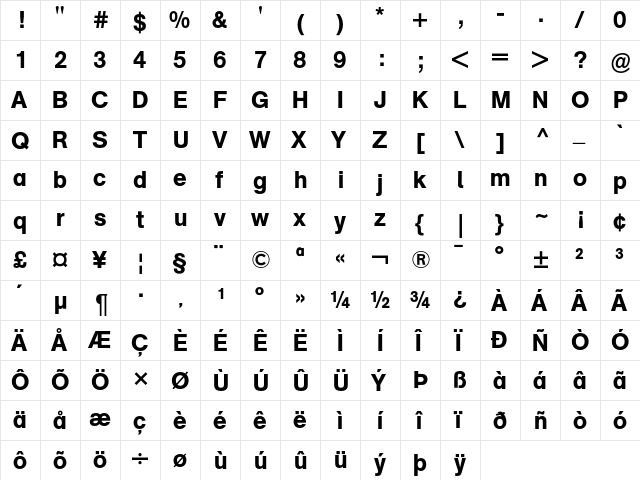
AG Schoolbook Medium A
Design Context for AG Schoolbook Typeface
AG Schoolbook offers clean, dependable letterforms without strong stylistic allegiance, making it a practical choice for designers who need flexibility.
Pro Tip: Use AG Schoolbook in both headline and body roles to test its range before committing to a single application.